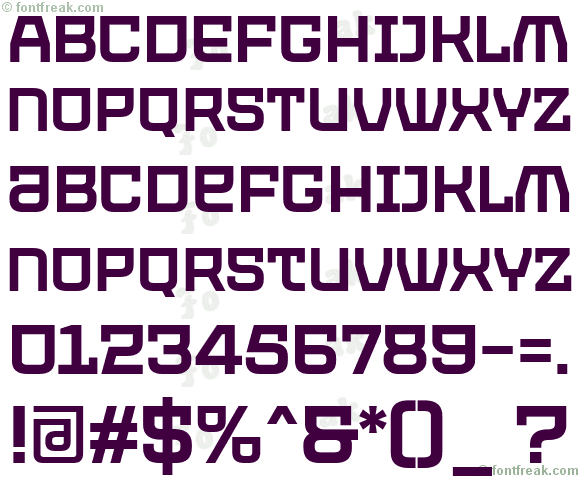
PROTECTOR
PROTECTOR Italic
About PROTECTOR
PROTECTOR by Situjuh Nazara is a striking sans-serif typeface that stands out with its modern and bold aesthetic. Designed in 2018, this font captures attention with its strong, geometric forms and clean lines, making it an ideal choice for a variety of design projects. The visual characteristics of PROTECTOR include a consistent stroke weight that lends itself to versatility, while the slight contrast in line thickness adds a touch of sophistication. The spacing is well-balanced, ensuring legibility and making it a practical choice for both digital and print applications.
This font is perfect for use cases such as branding for small businesses, impactful headlines in magazine layouts, dynamic movie posters, and engaging restaurant menus. Its bold nature makes it an excellent choice for graphic designers looking to create eye-catching visuals that convey a sense of strength and reliability. Content creators can also leverage PROTECTOR for social media graphics, website headers, and promotional materials, as it adapts seamlessly to various contexts.
What truly sets the PROTECTOR font apart is its blend of modernity and functionality. With its bold presence and versatile application, it serves as a powerful tool in any designer's arsenal. Downloading the PROTECTOR font free allows users to experience its potential firsthand, making it an essential addition for anyone looking to make a memorable impact with their typography choices.